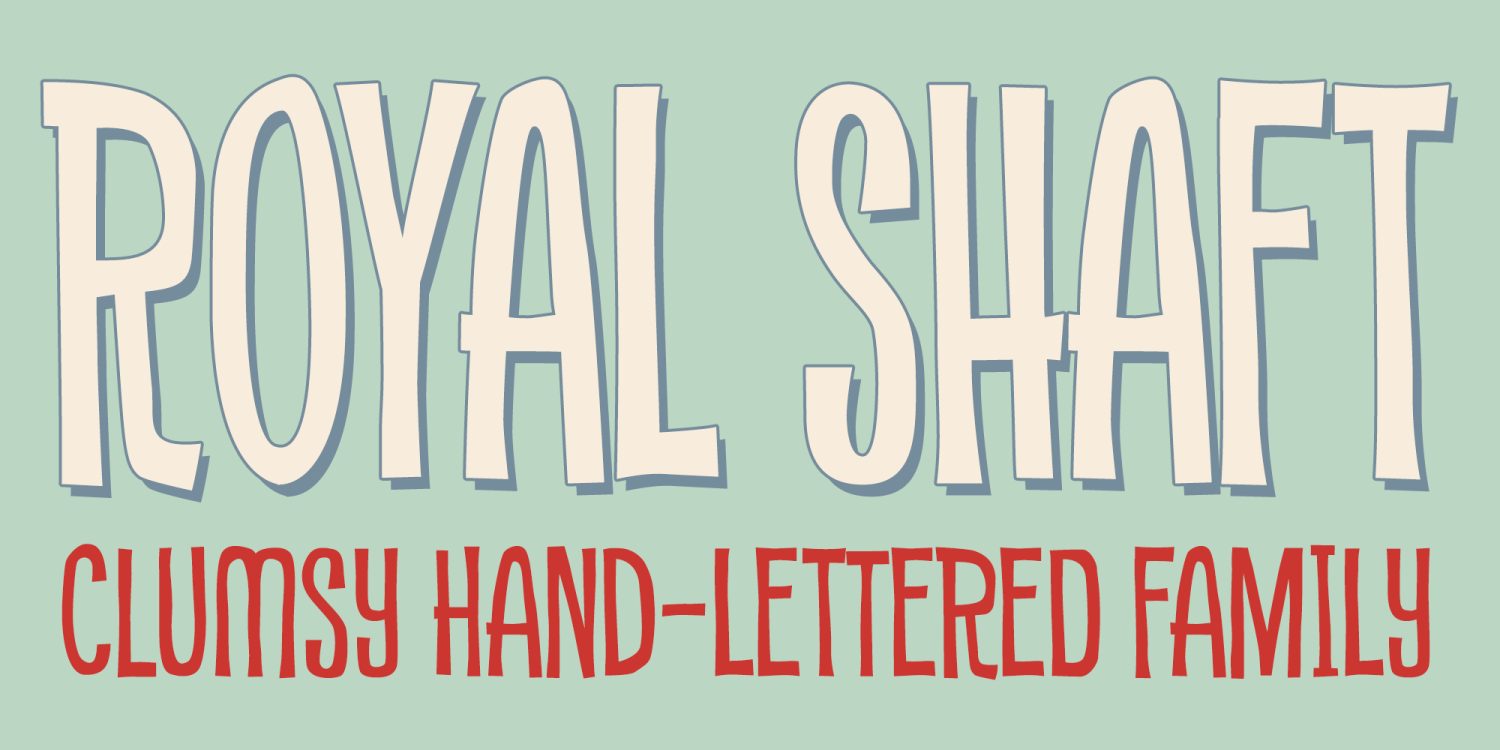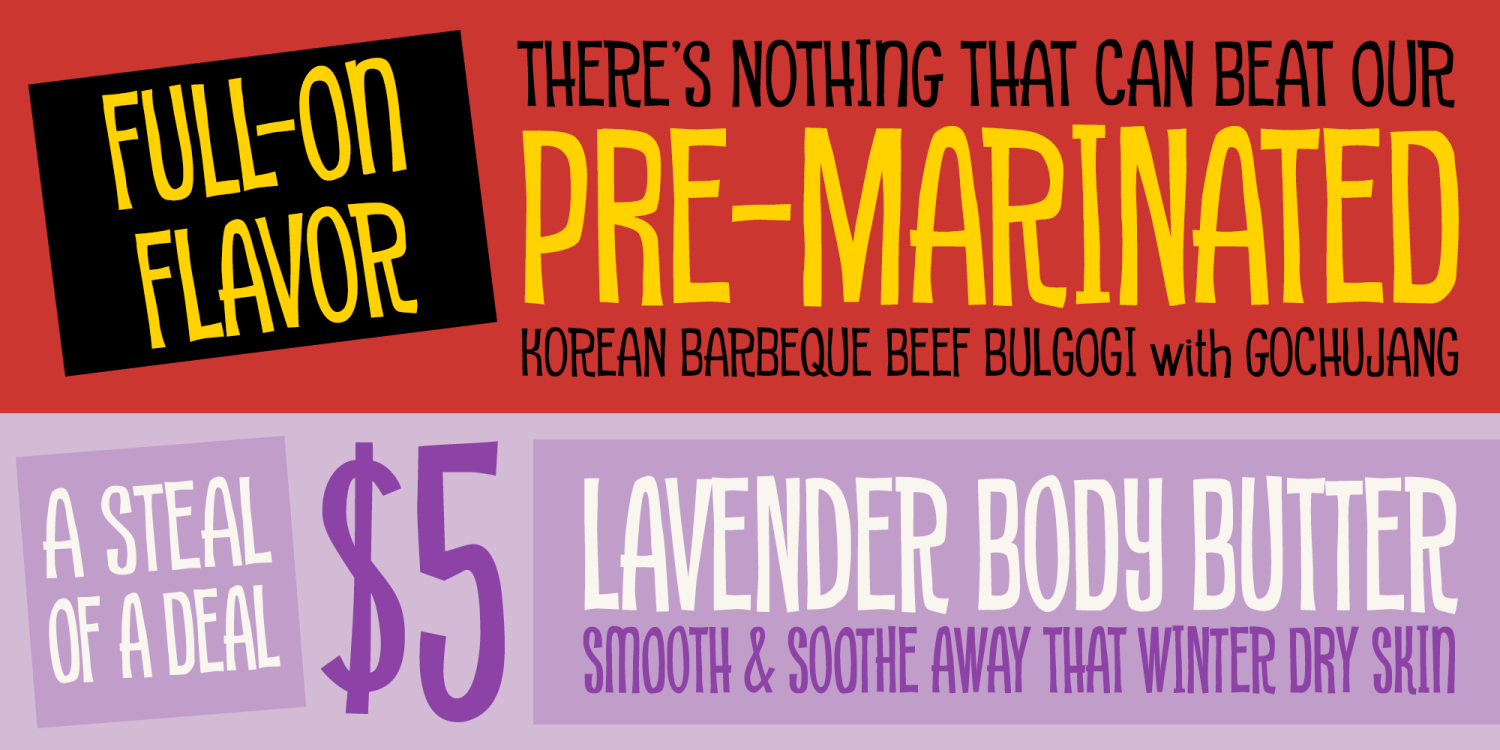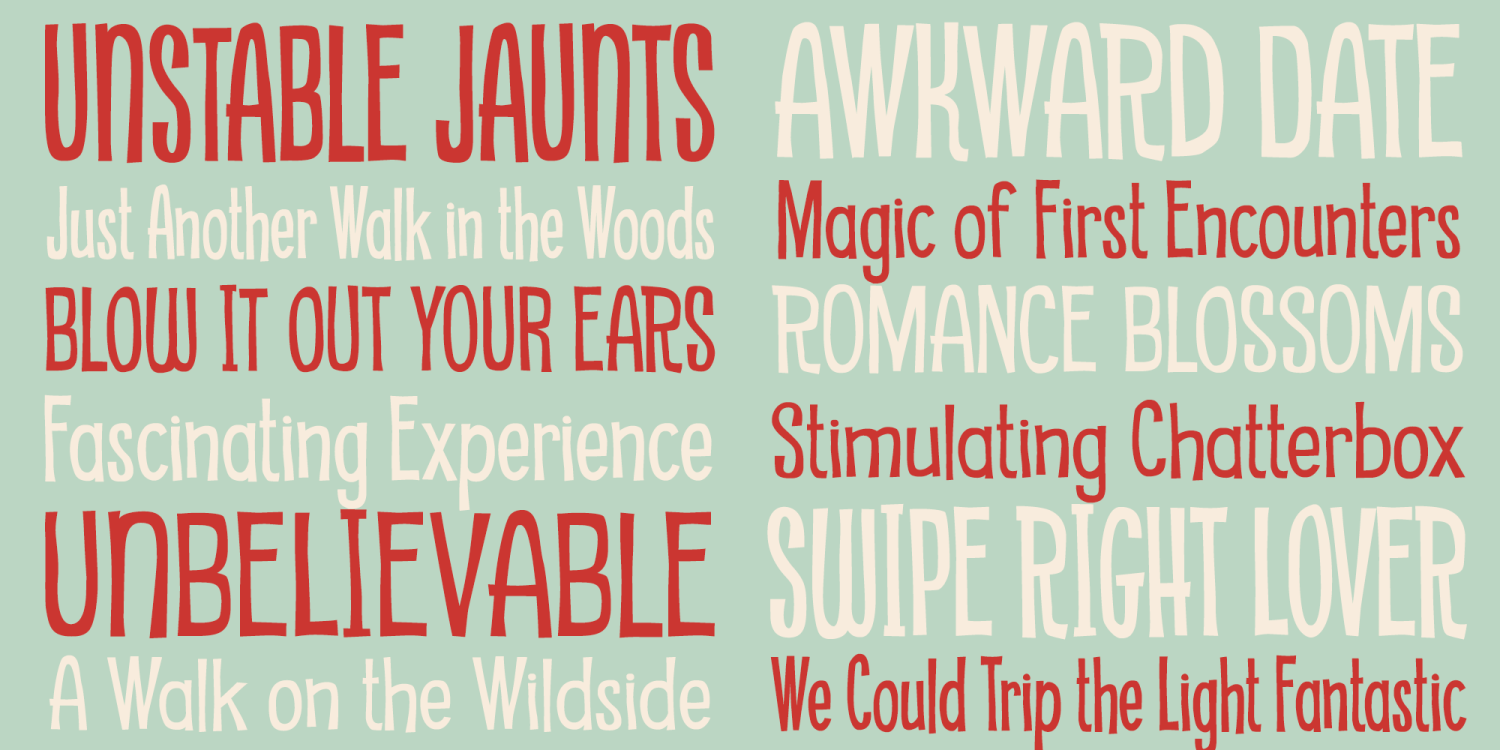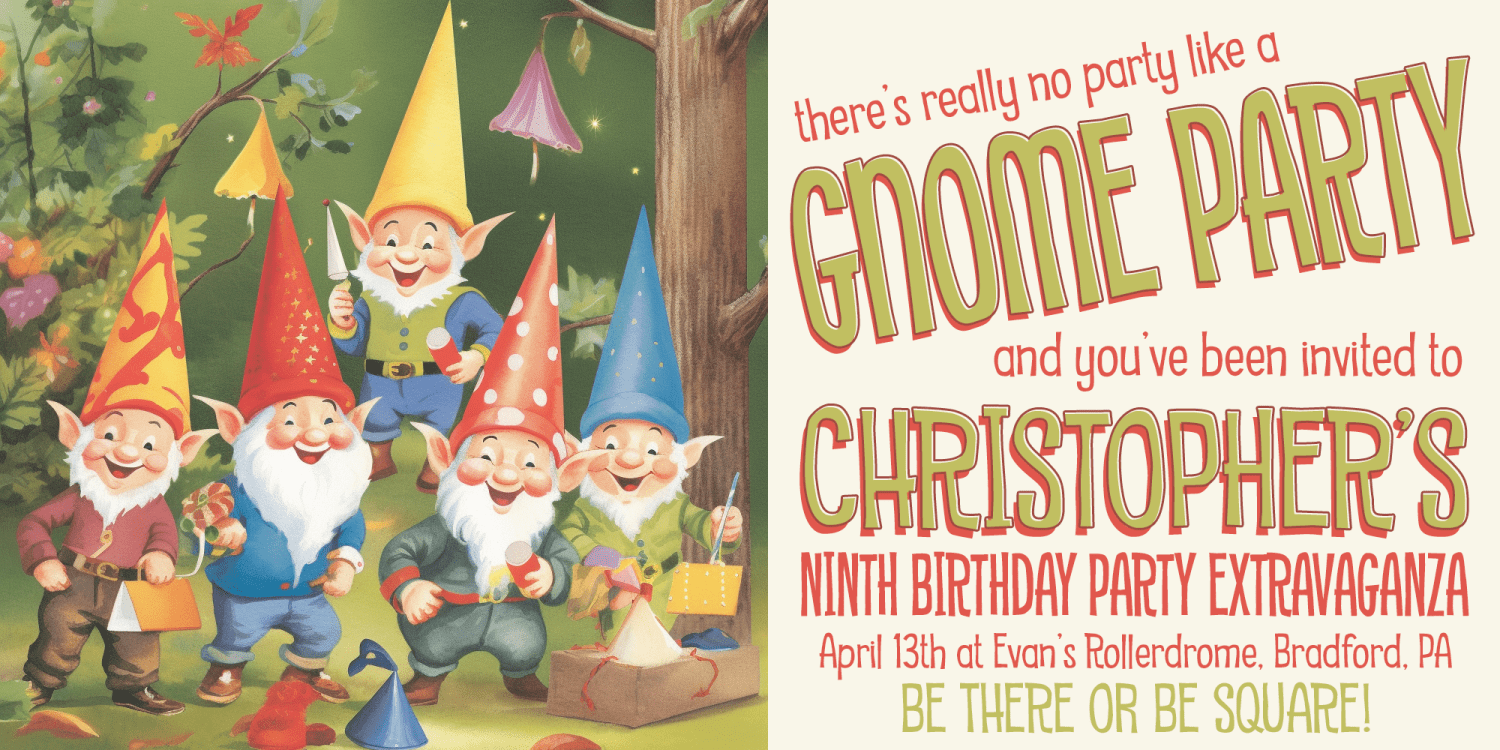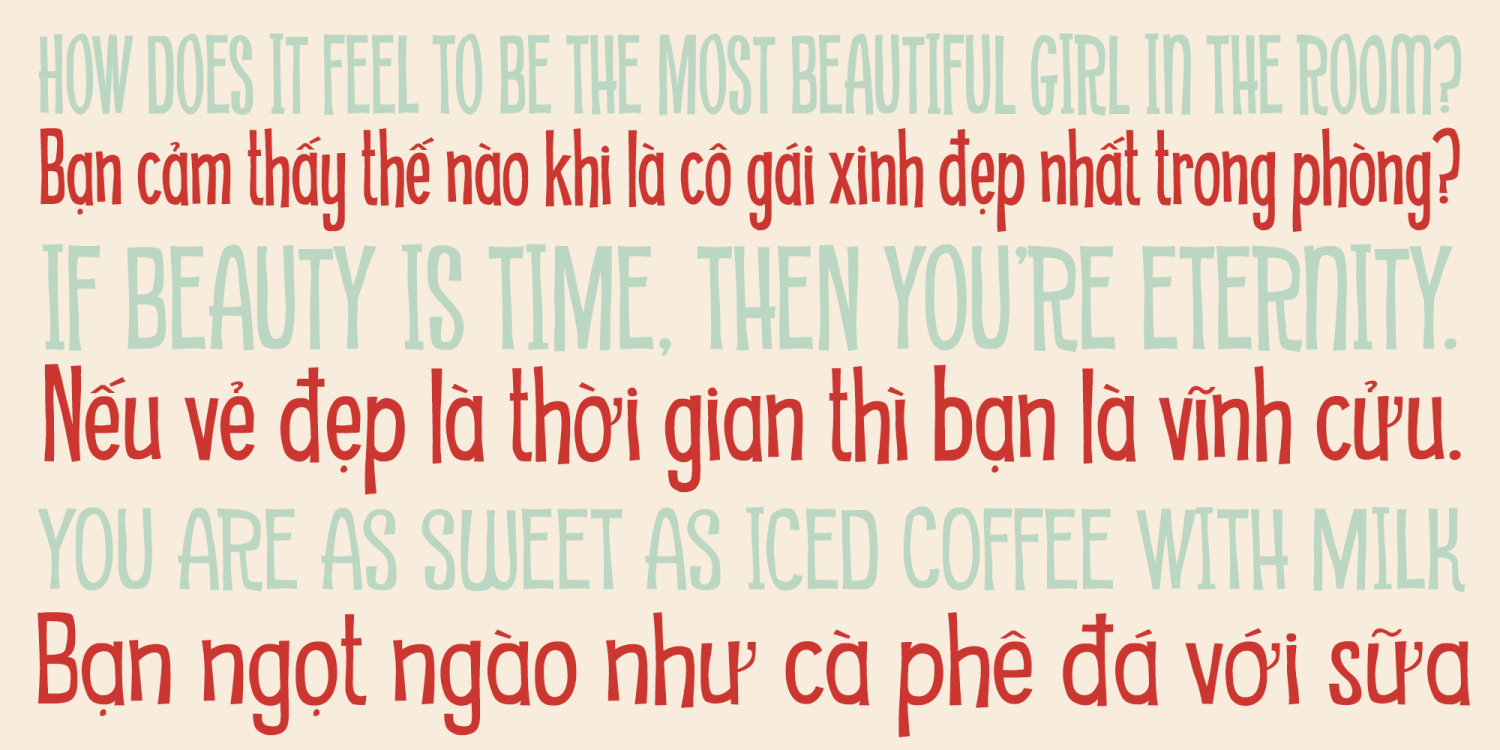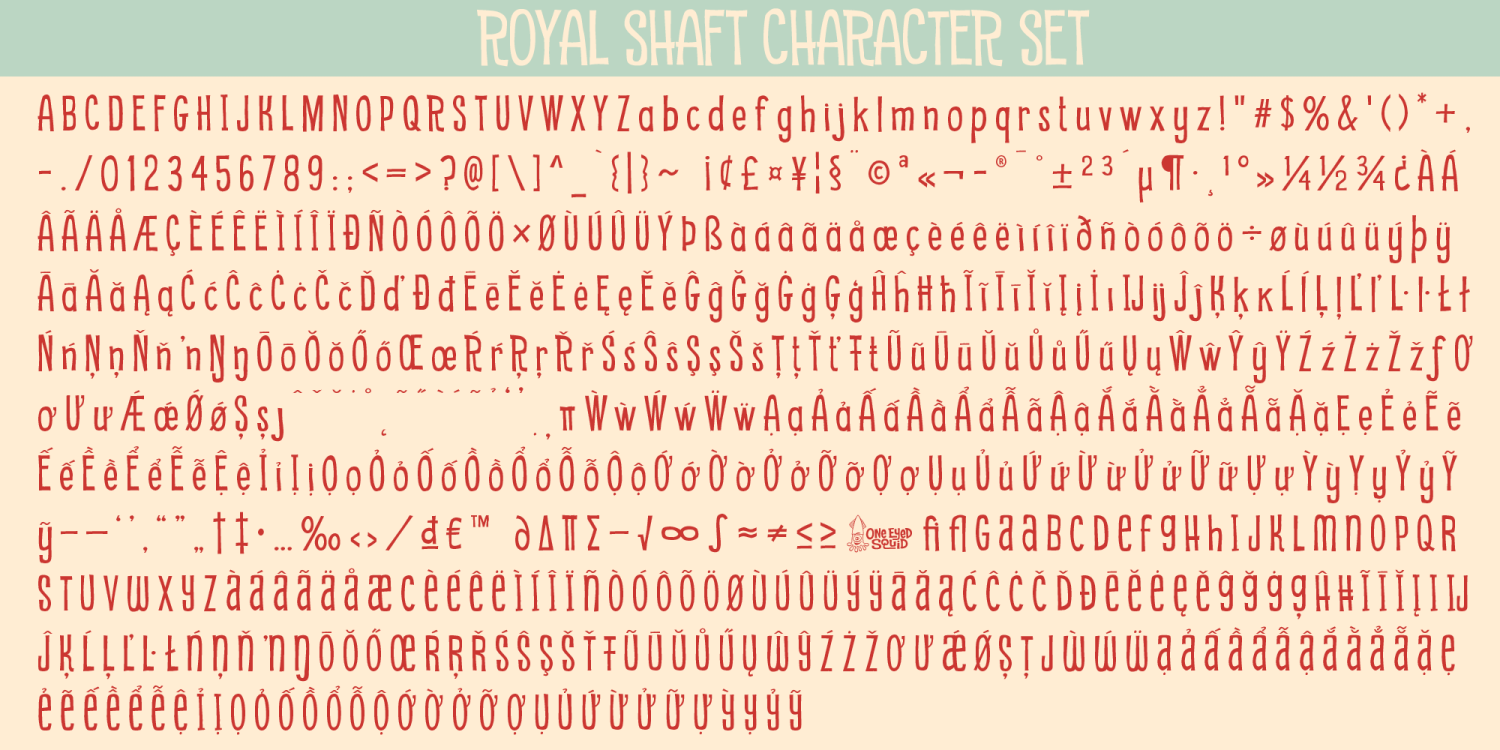
Royal Shaft
Royal Shaft is a quirky display font family with an offbeat rhythm, playful energy, and a deliberately clumsy charm. Its letterforms feel graceful in their own awkward way, giving designs a distinctive personality that stands apart from cleaner or more polished display styles. With Condensed, Regular, and Wide widths, Royal Shaft offers flexible options for headlines, posters, branding, packaging, logos, social media graphics, and other creative work that benefits from an unusual, expressive typographic voice. Fun, characterful, and slightly eccentric, Royal Shaft brings a whimsical and memorable presence to retro-inspired, casual, and unconventional design projects. Includes extended Latin language support, including Vietnamese.
3 Styles Included
Condensed Regular
Regular
Wide Regular
Royal Shaft includes 656 glyphs.